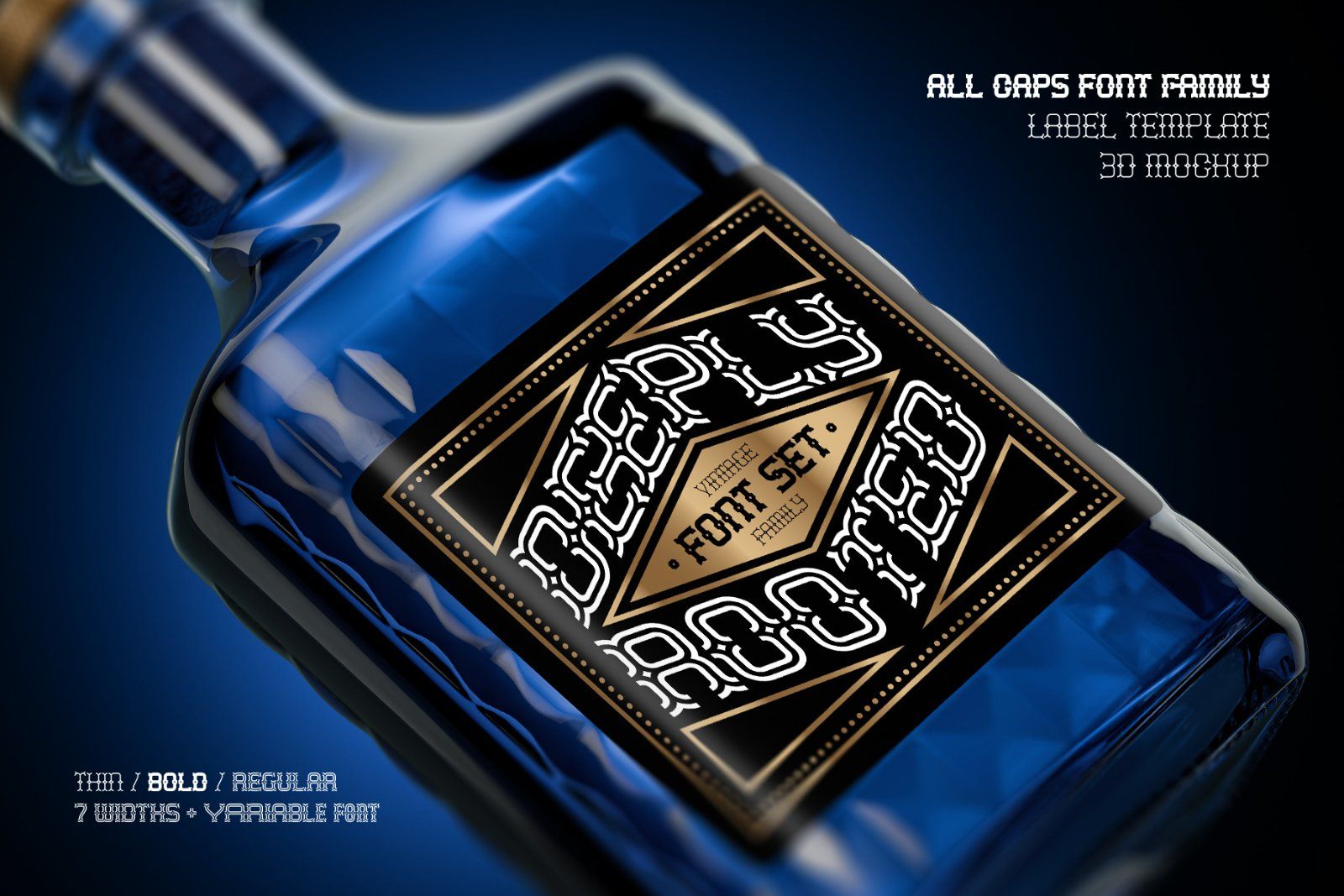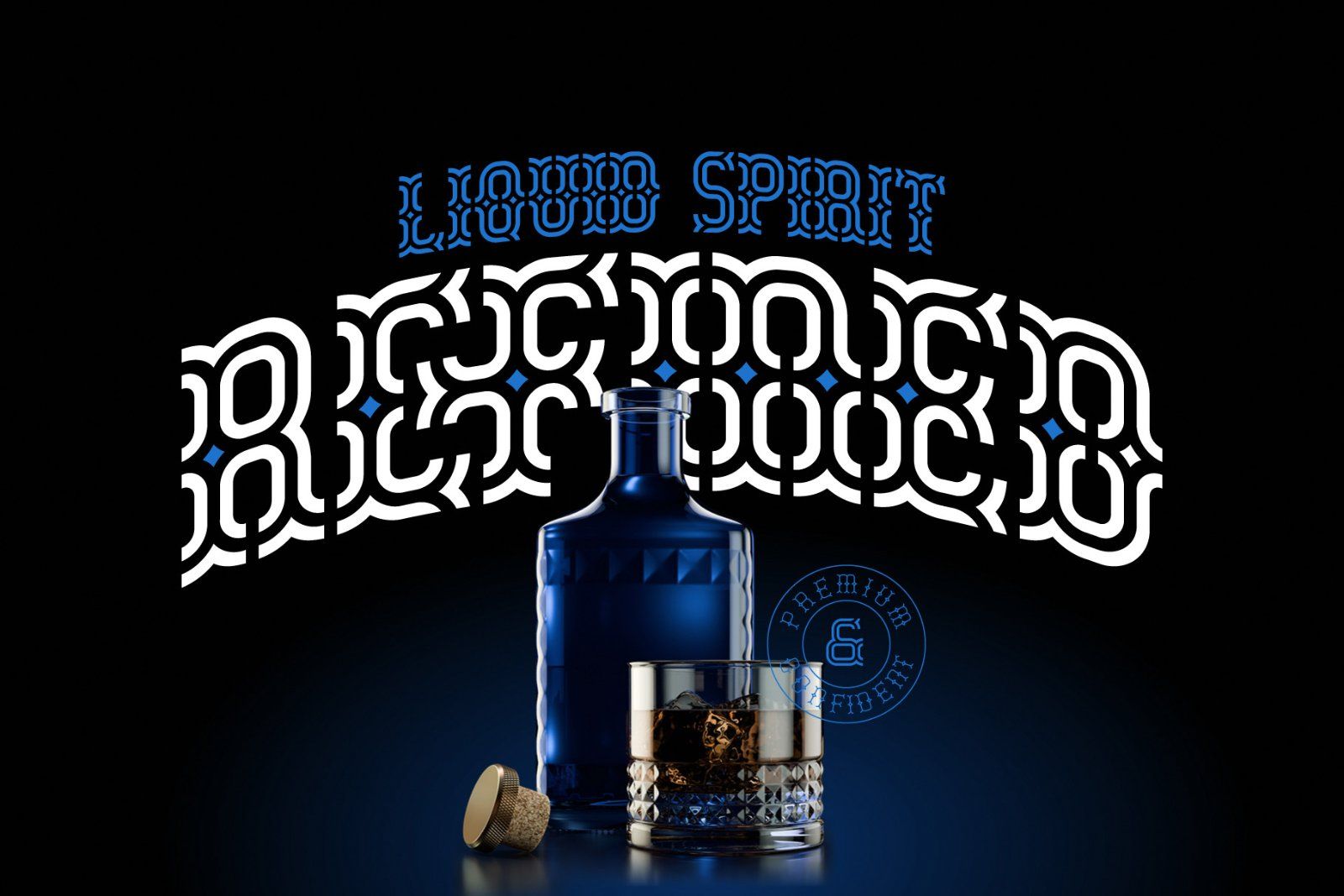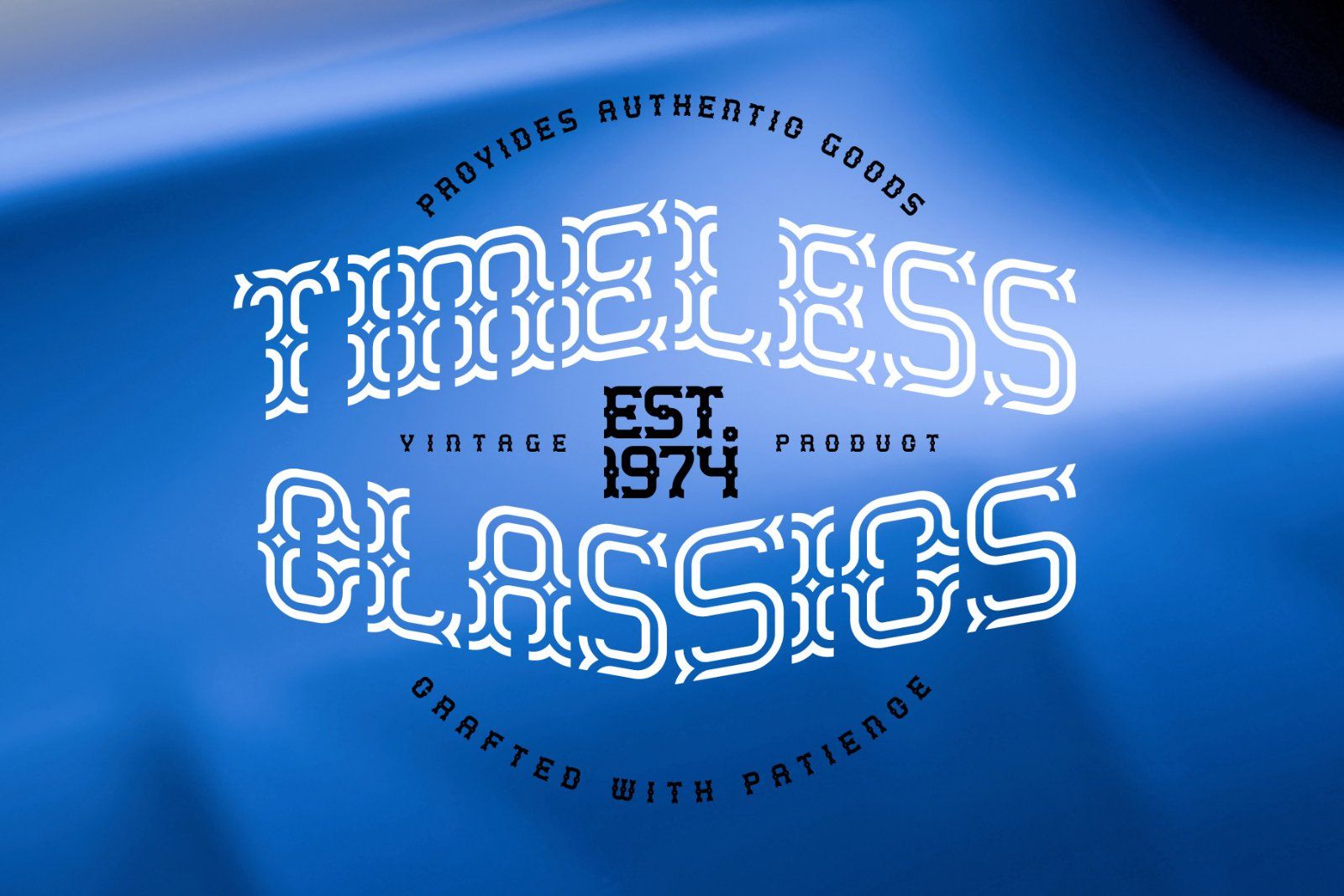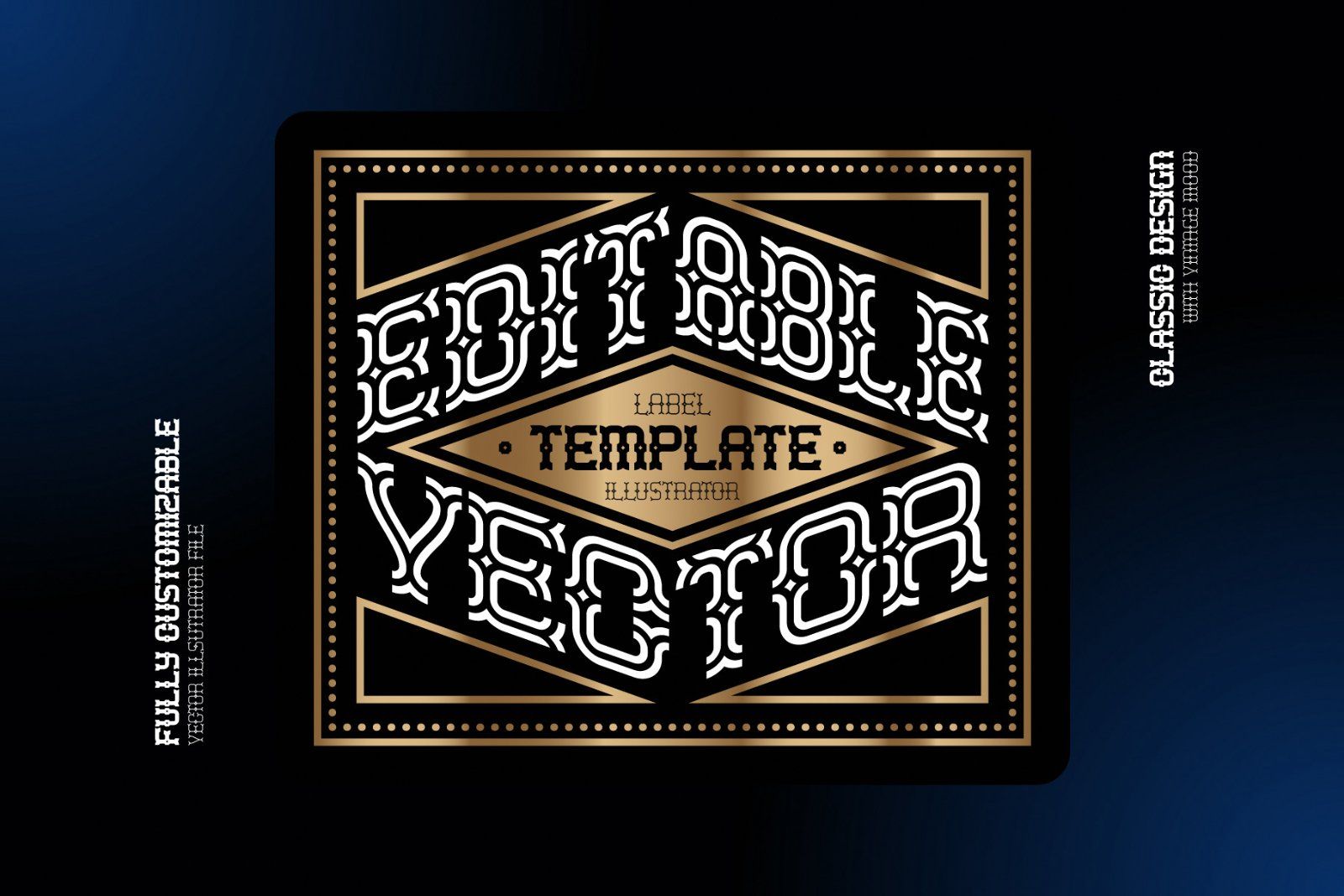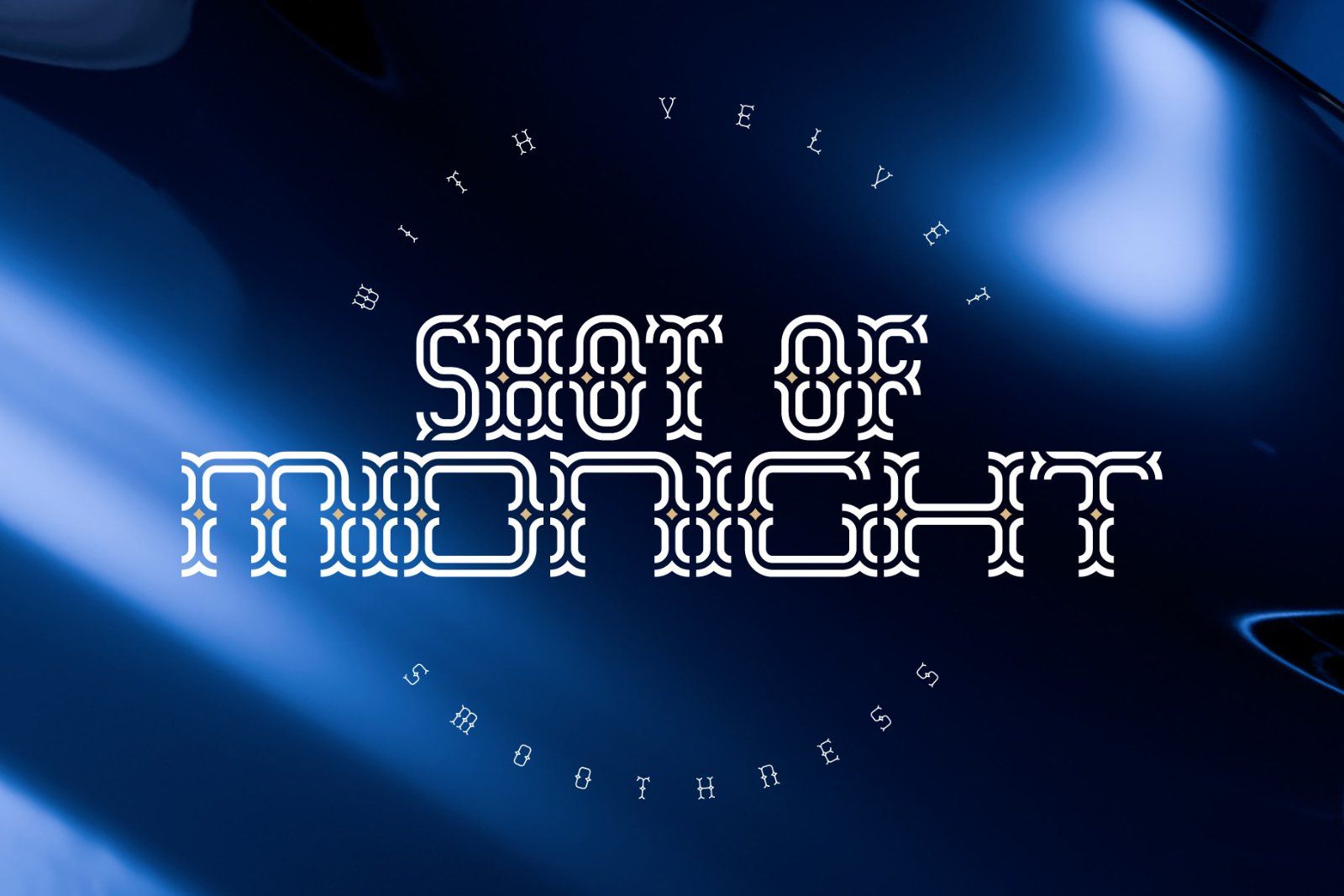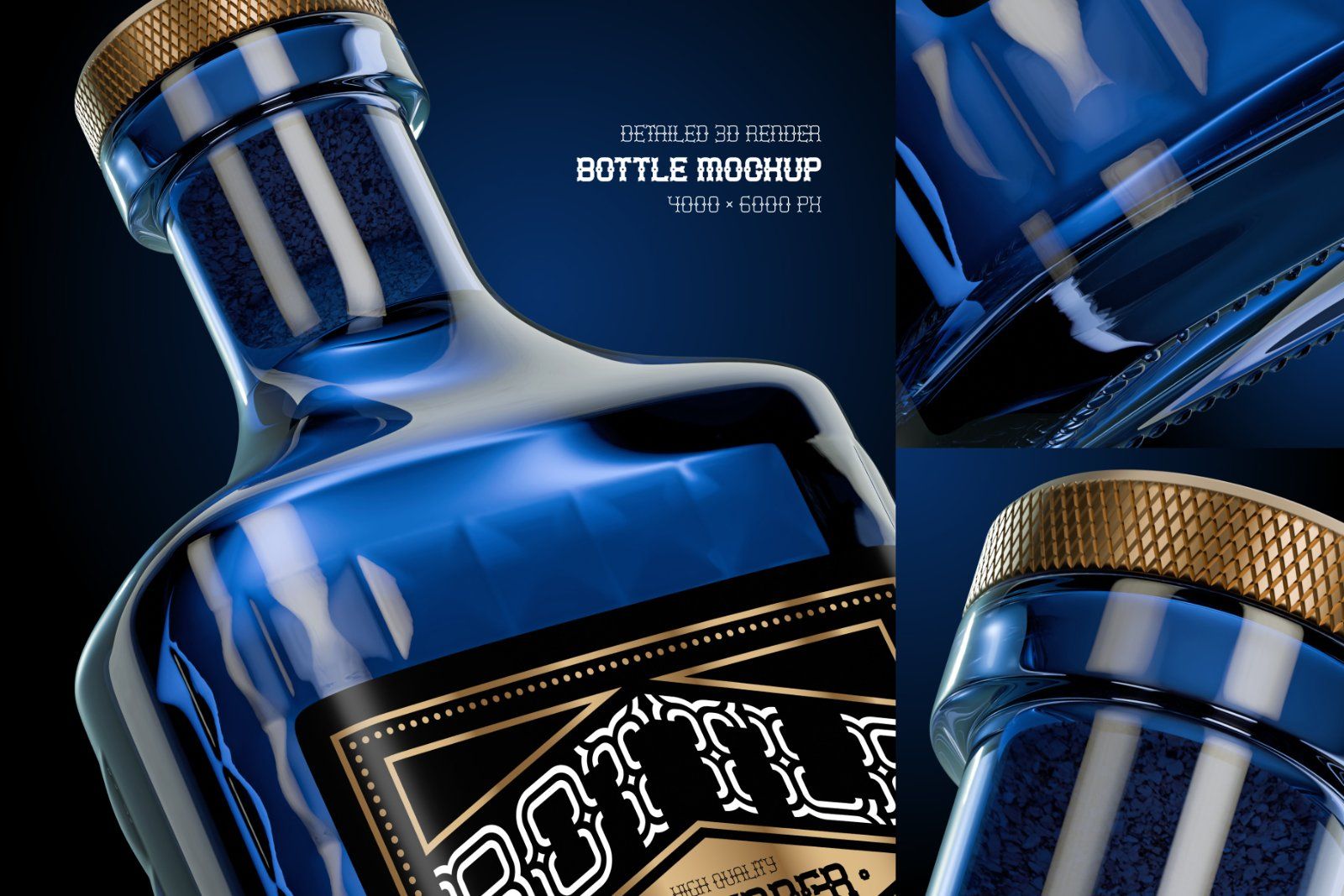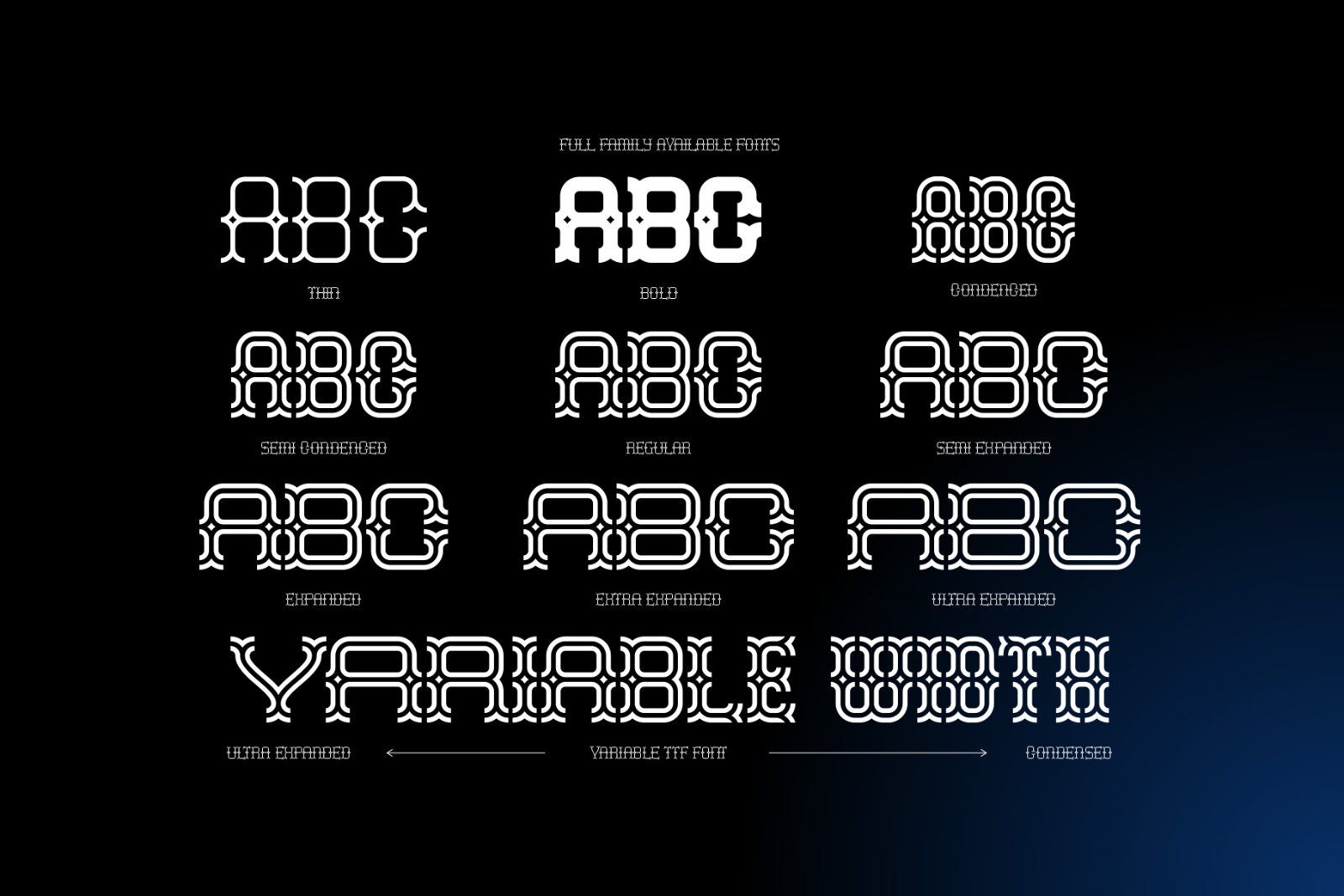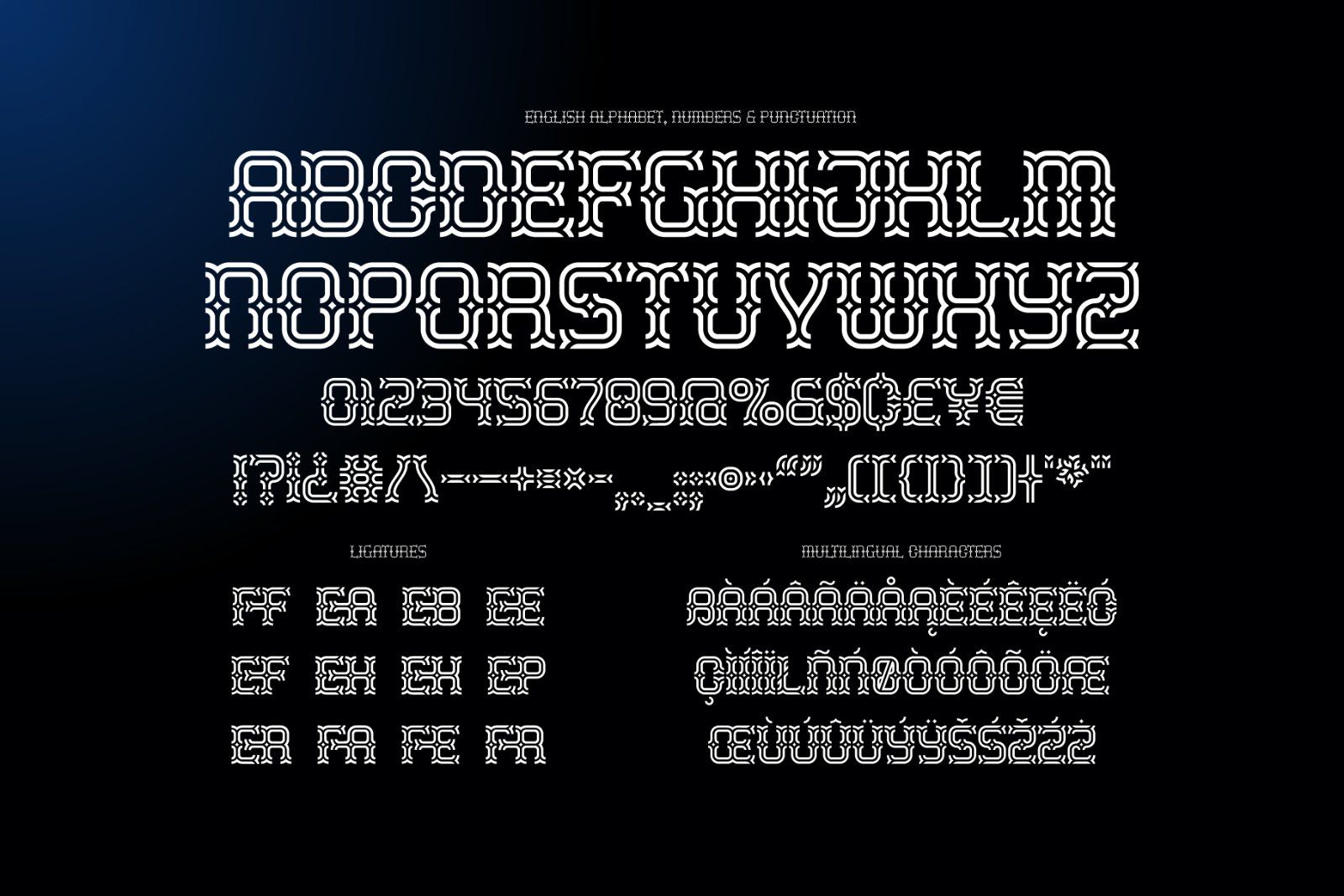
Introducing the Deeply Rooted Design Kit, crafted in a classic yet modern style. At its core is a font family with an original slab serif design, perfectly suited for classic branding and packaging.
Deeply Rooted is available in seven different OTF files, ranging from Condensed to Ultra Expanded, alongside Thin and Bold weights. The family also includes a Variable TTF version, allowing flexible width adjustments within a single file — a highly convenient feature for label templates. Each font features a set of 231 characters, including ligatures and multilingual support. Check out the screenshots to see the full character set.